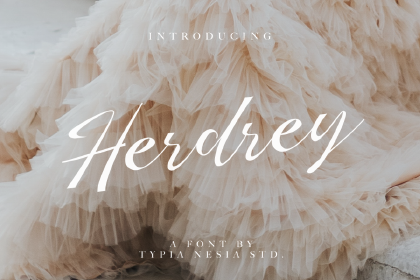
Free Herdrey Script Font Demo
Today we're glad to feature this free herdrey script font demo. This is a downloadable free font file brought to you by Free Design Resources. Showcase your designs like a graphic design pro by adding a new touch with this fancy font.